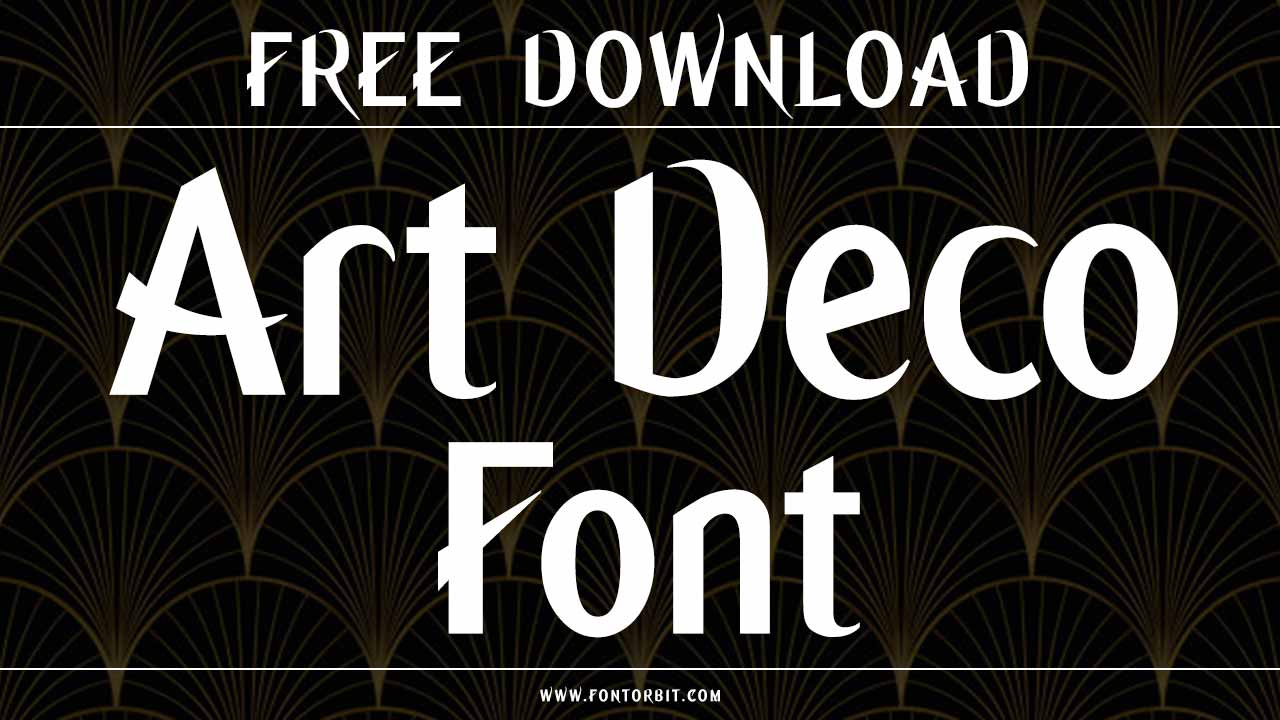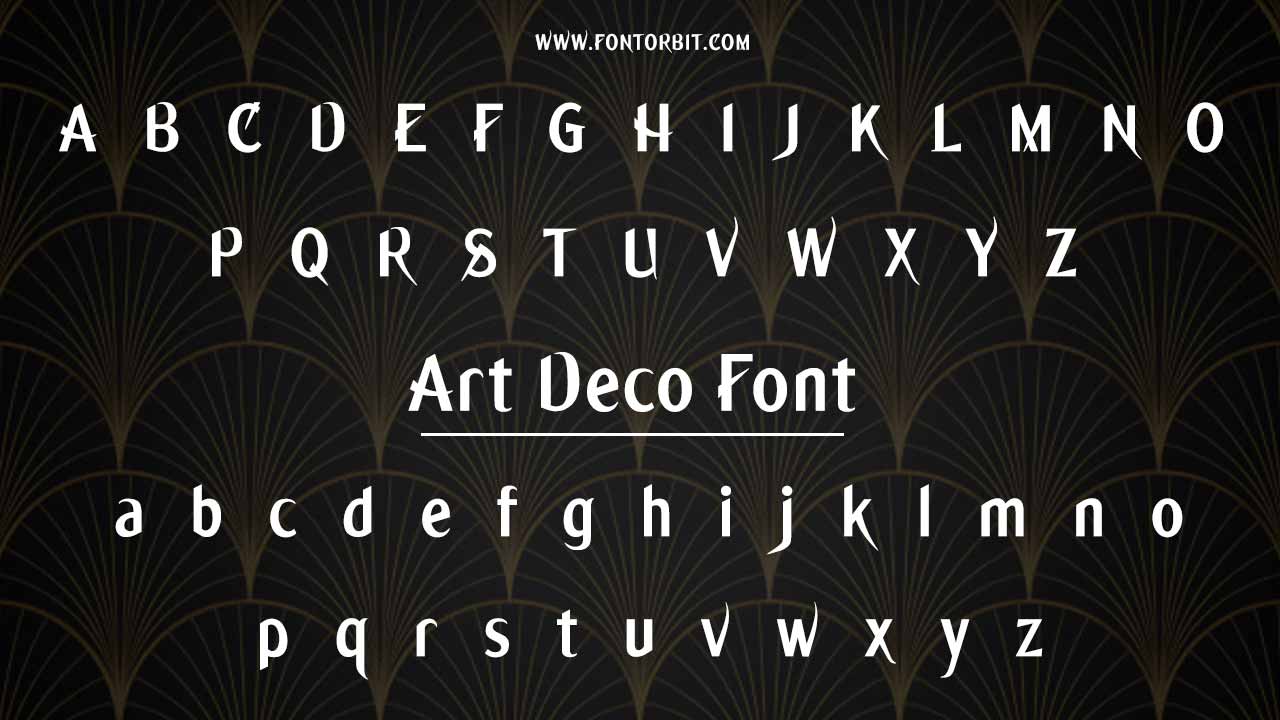
Art Deco fonts epitomize elegance, luxury, and sophistication. Drawing inspiration from the Art Deco era, these typefaces integrate geometric shapes, bold lines, and intricate Art Deco typography. This unique design style enhances graphic design, branding projects, and editorial layouts, making it an ideal choice for premium branding.
Best Art Deco Font Families
Below are some exquisite Art Deco font families that elevate logo design, posters, and editorial designs.
| Font Family Name | Style | Features |
| Bellerose Pro | Serif Font | Classic Art Deco serif with alternate characters |
| Metropolis 1920 | Sans Serif Font | Strong geometric Art Deco typeface |
| Decolot | Display Font | Elegant with stylistic alternates and glyphs |
| Gatsby | Modern Art Deco Font | Ideal for branding and editorial design |
| Parisienne Deco | Art Nouveau Font | Retro style with uppercase characters |
Why Use Art Deco Fonts In Branding?
Art Deco fonts are widely used in luxury branding for their bold and refined aesthetic. Their multilingual support and web font adaptability make them ideal for graphic elements in high-end design projects.
- Timeless Elegance – Perfect for branding and editorial layouts.
- Versatile Use – Ideal for display fonts in logos, packaging, and posters.
- Distinctive Style – Features alternates, uppercase characters, and intricate designs.
- Wide Application – Best for Envato Elements, luxury brands, and marketing.
Where To Use Art Deco Fonts
- Branding Projects – Luxurious logos and editorial layouts.
- Graphic Design – Elegant illustrations and graphic elements.
- Typography Posters – High-end design projects and advertisements.
- Web & Digital – Web fonts that bring a vintage yet modern touch.
Art Deco fonts seamlessly blend elegance and modernity, making them an excellent choice for luxurious branding projects. Whether used in logos, posters, or editorial design, these typefaces create a sophisticated visual identity that stands the test of time.
What Makes An Art Deco Font Different From Other Fonts?
Art Deco fonts feature bold geometric shapes, clean lines, and an opulent style inspired by the Art Deco movement.
Can Art Deco Fonts Be Used For Modern Branding?
Yes, modern Art Deco fonts blend vintage charm with contemporary elegance, making them ideal for branding.
What Is The Best Art Deco Font For A Luxury Brand?
Fonts like Bellerose Pro and Metropolis 1920 are excellent choices for luxury branding.
Do Art Deco Fonts Support Multilingual Characters?
Many Art Deco font families offer multilingual support, including Latin and Cyrillic scripts.